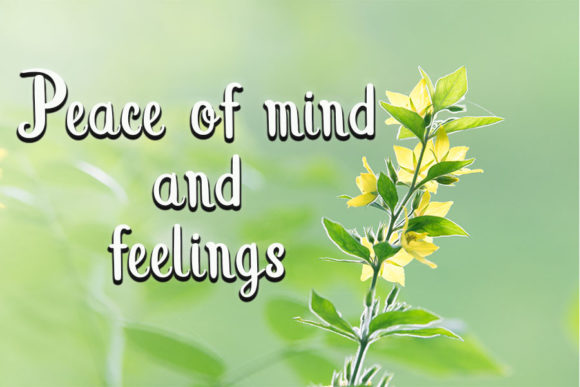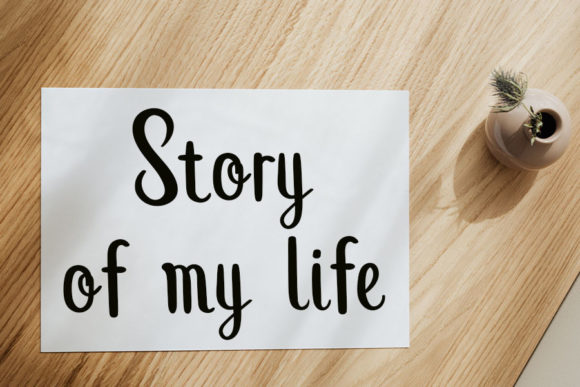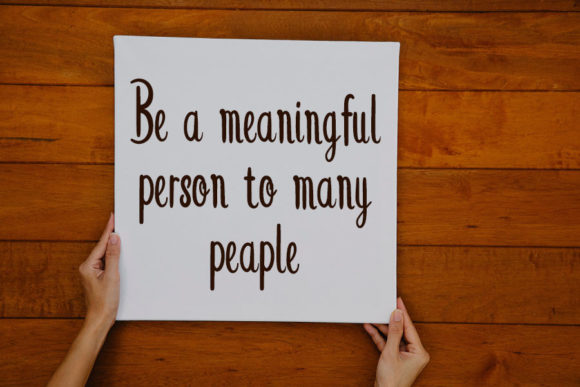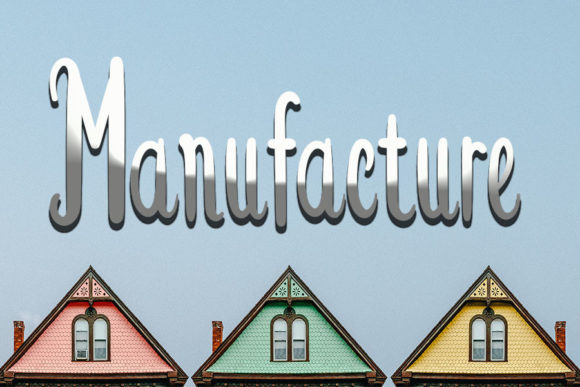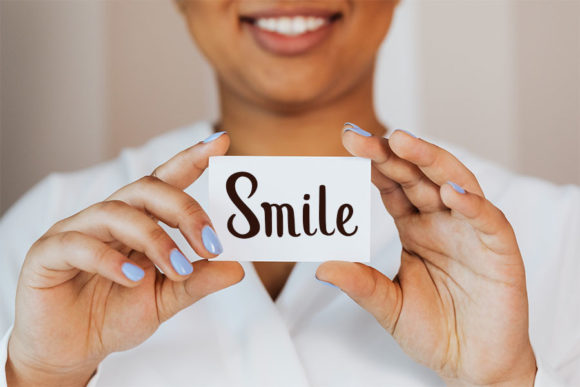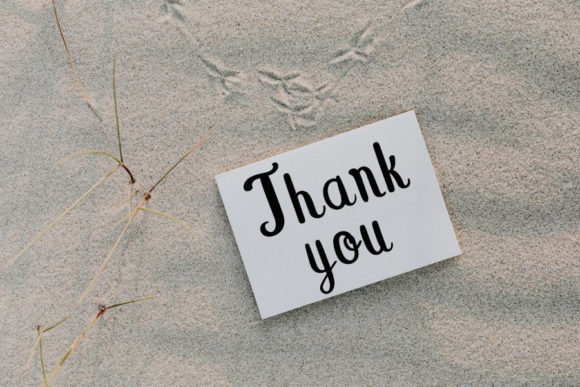
Fummy Scratch Font: The Sweet and Delicate Handwritten Font for Romantic Designs
Are you a designer or crafter looking for a font that can add a touch of romance and personality to your designs? Look no further than Fummy Scratch Font! This sweet and delicate handwritten font is perfect for creating wedding invitations, cards, and other designs that require a romantic and personalized touch.
What Makes Fummy Scratch Font Special?
Fummy Scratch Font is a unique and charming font that is sure to capture the hearts of designers and crafters alike. Its dainty and joyful feel makes it ideal for a variety of design projects, from wedding invitations and cards to party decorations and social media graphics.
One of the standout features of Fummy Scratch Font is its handwritten style, which gives it a personal and intimate feel. The font’s delicate lines and curves create a sense of whimsy and playfulness, making it perfect for designs that require a touch of romance and elegance.
Perfect for Wedding Designs and More
Fummy Scratch Font is particularly well-suited for wedding designs, such as wedding invitations, save-the-date cards, and thank-you notes. Its romantic and delicate feel makes it perfect for creating beautiful and memorable wedding stationery.
But Fummy Scratch Font isn’t just limited to wedding designs. It’s also great for creating other types of cards, such as birthday cards, anniversary cards, and holiday cards. And, with its playful and whimsical feel, it’s perfect for designing party decorations, social media graphics, and other fun and creative projects.
Why Designers and Crafters Love Fummy Scratch Font
- Unique and charming style: Fummy Scratch Font has a one-of-a-kind style that’s sure to make your designs stand out.
- Easy to read: Despite its delicate feel, Fummy Scratch Font is easy to read, making it perfect for designs that require a lot of text.
- Versatile: Fummy Scratch Font can be used for a wide range of design projects, from wedding invitations to party decorations.
- Personalized feel: The handwritten style of Fummy Scratch Font gives it a personal and intimate feel that’s perfect for creating unique and special designs.
How to Use Fummy Scratch Font in Your Designs
- Pair it with other fonts: Fummy Scratch Font looks great when paired with other fonts, such as bold sans-serif fonts or elegant script fonts.
- Use it for headings and titles: Fummy Scratch Font is perfect for headings and titles, where its delicate feel and whimsical style can really shine.
- Add embellishments: Consider adding embellishments, such as flowers or hearts, to give your designs an extra touch of romance and personality.
Fummy Scratch Font is a sweet and delicate handwritten font that’s perfect for designers and crafters looking to add a touch of romance and personality to their designs. With its unique and charming style, easy readability, and versatility, it’s no wonder that Fummy Scratch Font is a popular choice for wedding designs, cards, and other creative projects.